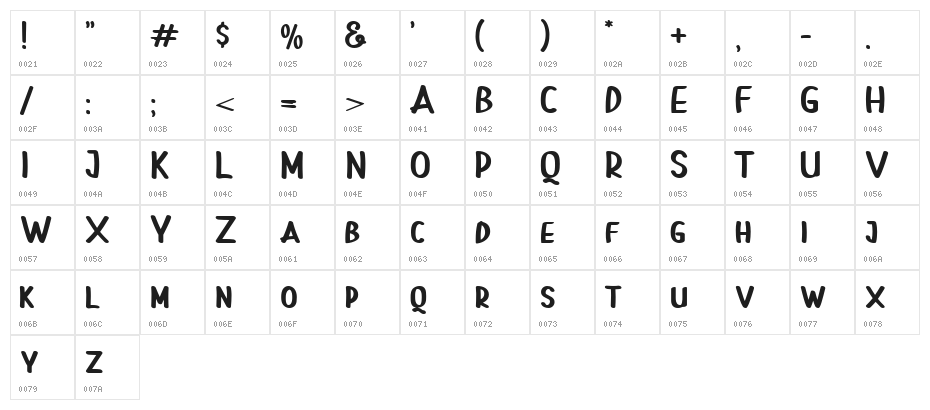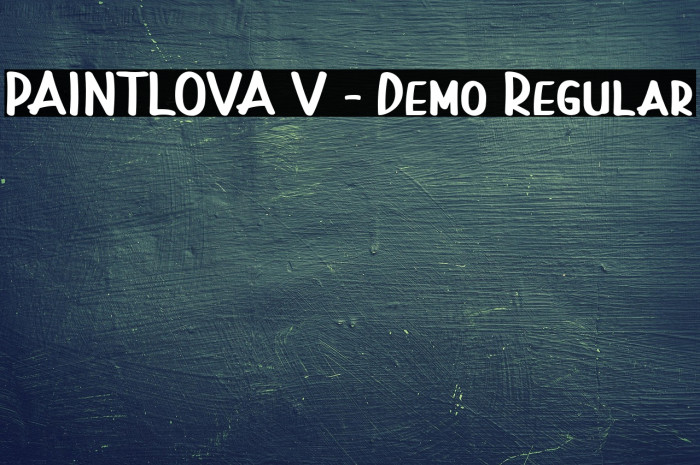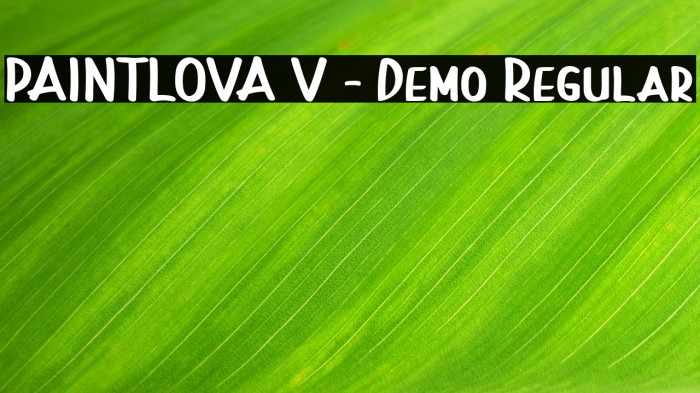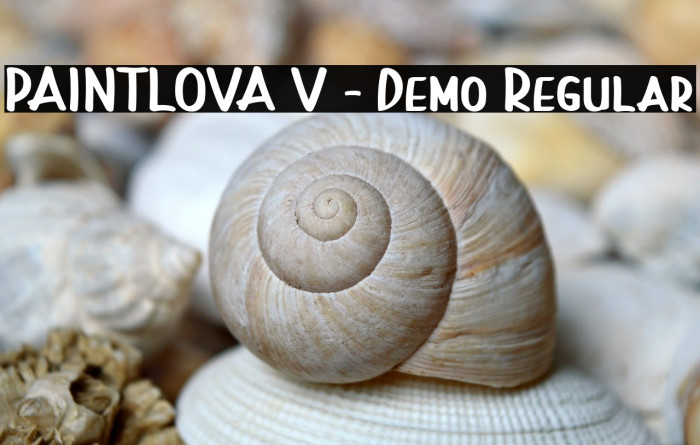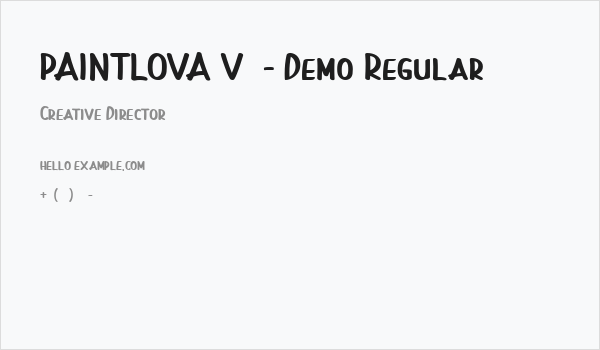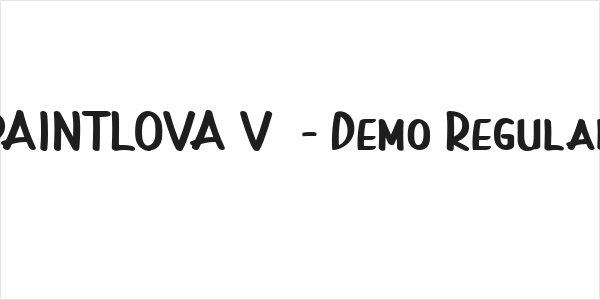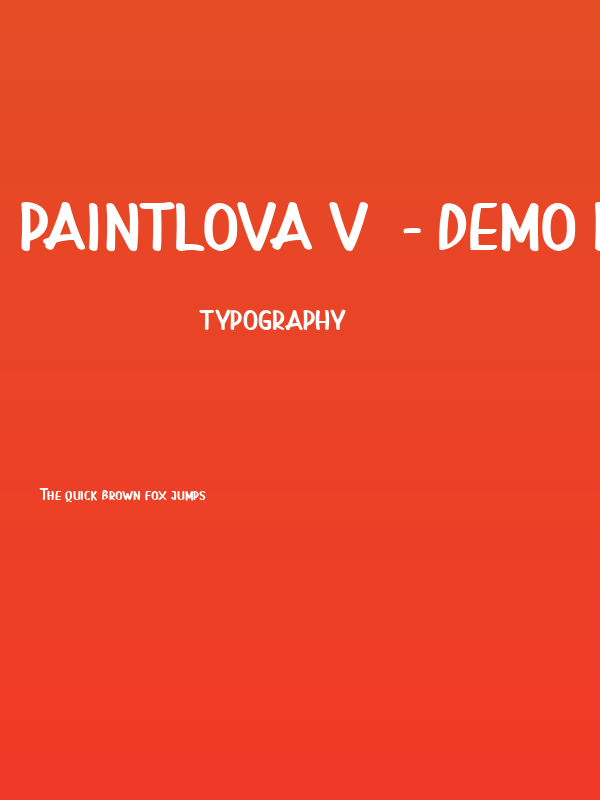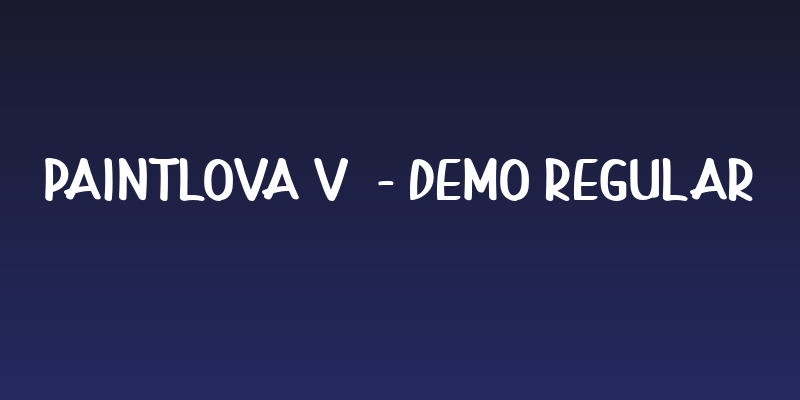
PAINTLOVA V2 - Demo Regular Font
PAINTLOVA V2 - Demo Regular Description
This font features a bold and playful style with a hand-drawn appearance. The characters are rounded and slightly irregular, giving it a casual and friendly look. The uppercase letters are consistent in height, while the lowercase letters maintain a similar width, creating a harmonious balance. The font includes a full set of uppercase and lowercase letters, numbers, and a variety of special characters, making it versatile for different design needs. The strokes are thick and uniform, contributing to its bold presence, while the overall design exudes a sense of fun and creativity.
Overall StylePlayful
Proposed ProjectsIdeal for children's books, playful branding, posters, and creative projects.